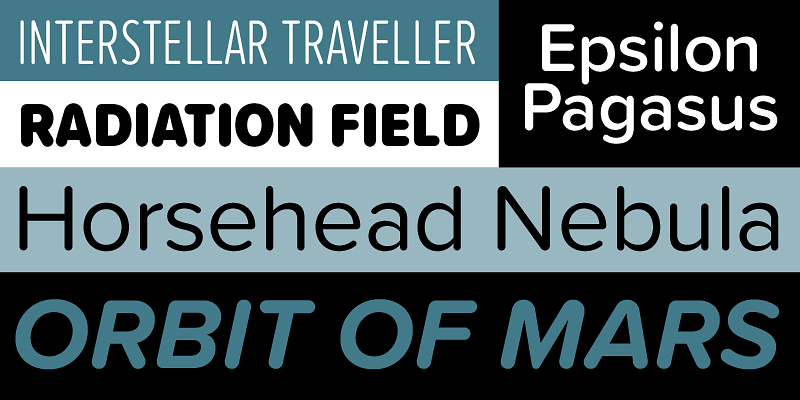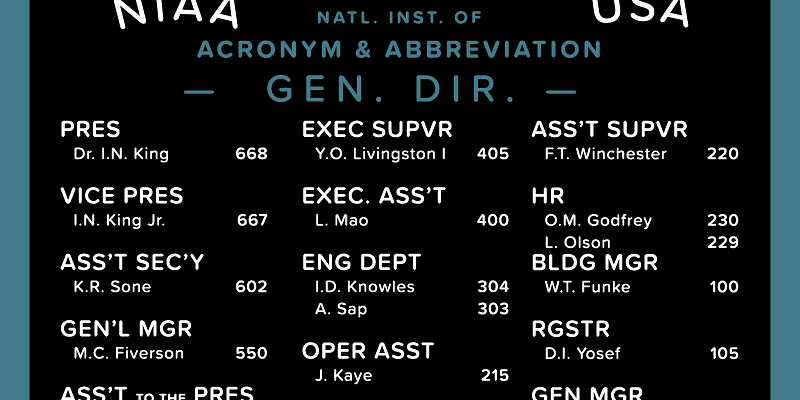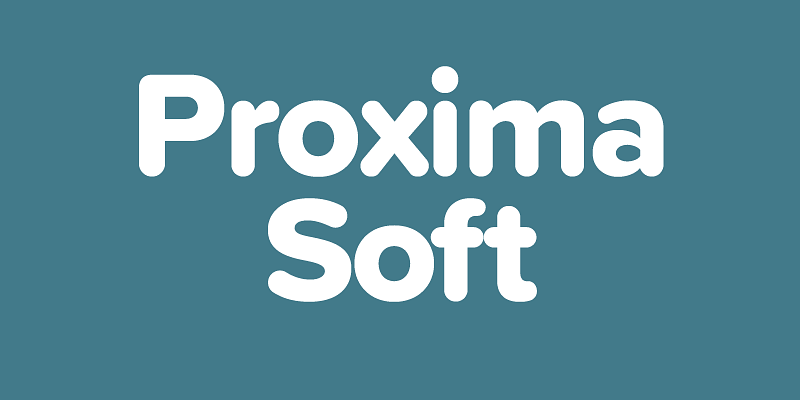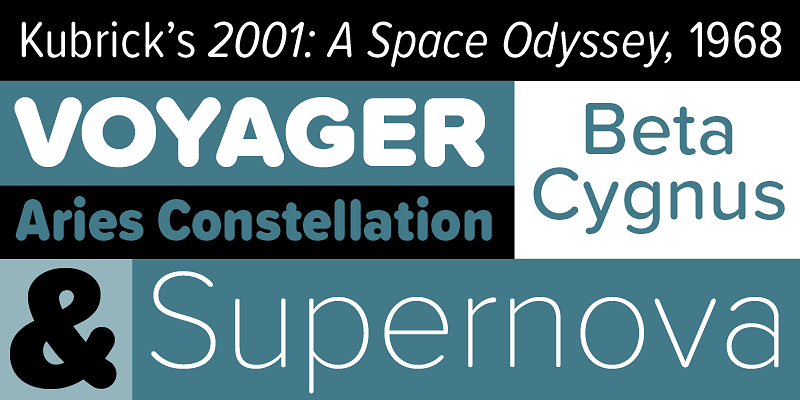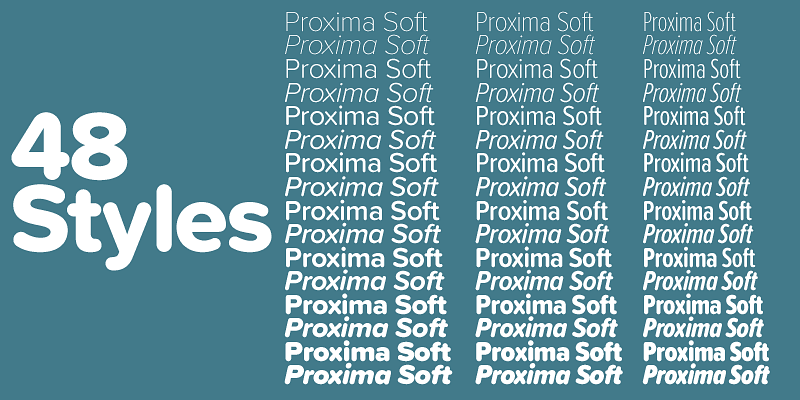
Proxima Soft (2017) is a rounded version of Proxima Nova. With the same forty-eight styles (eight weights in three widths, plus italics), Proxima Soft fits the bill when you want something a bit warmer and more playful than its older sibling. It features the same extensive language support, including Greek and Cyrillic. It also has several alternate characters, such as single-story lowercase a, allowing you to customize its appearance in a variety of ways.